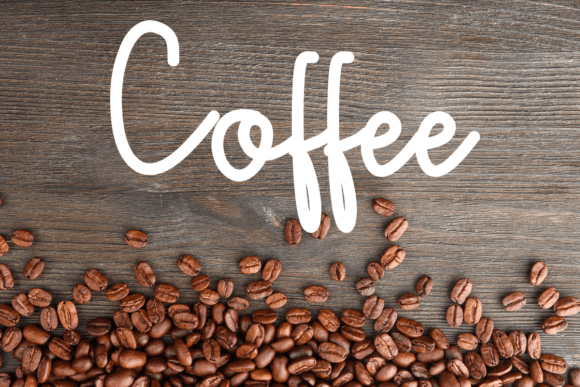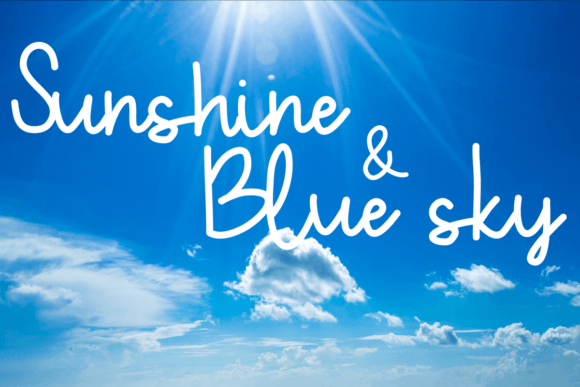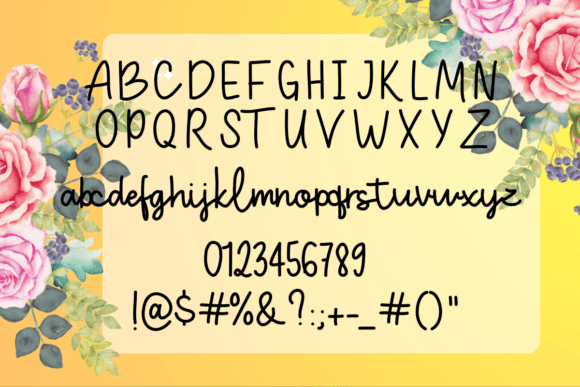
Introducing Beautiful Font: Elevate Your Designs with Modern Elegance
Beautiful is a stunning modern handwritten font that has taken the design world by storm. Its unique blend of elegance and playfulness makes it the perfect addition to any design project. Whether you’re a seasoned designer or a crafty DIY enthusiast, Beautiful Font is sure to captivate your audience with its fresh and original typography.
The Perfect Blend of Modern and Classy
Beautiful Font boasts a modern and classy aesthetic that’s perfect for designers looking to add a touch of sophistication to their work. Its clean lines, flowing curves, and delicate strokes create a beautiful visual experience that’s both eye-catching and refined. This versatile font is ideal for a wide range of design applications, from wedding invitations and branding materials to social media graphics and digital art.
What Makes Beautiful Font So Special?
- Unique and Original: Beautiful Font is a one-of-a-kind typeface that’s sure to make your designs stand out from the crowd. Its distinctive style and flair will add a touch of personality to any project.
- Handwritten with Love: This font is carefully crafted with a personal touch, giving it a warm and inviting feel that’s perfect for designs that require a human touch.
- Modern and Fresh: Beautiful Font is a modern take on traditional handwritten fonts. Its fresh and contemporary style ensures that your designs will look current and on-trend.
- Cute and Playful: This font’s playful and whimsical nature makes it perfect for designs that require a touch of fun and personality.
Use Beautiful Font in Your Designs
Beautiful Font is perfect for a wide range of design applications, including:
- Wedding Invitations: Add a touch of elegance and sophistication to your wedding invitations and stationery.
- Branding Materials: Use Beautiful Font to create stunning logos, business cards, and brochures that showcase your brand’s personality.
- Social Media Graphics: Elevate your social media presence with eye-catching graphics and typography that will make your content stand out.
- Digital Art: Beautiful Font is perfect for digital artists looking to add a touch of elegance and sophistication to their artwork.
Tips for Using Beautiful Font
To get the most out of Beautiful Font, here are some expert tips:
- Pair it with Other Fonts: Combine Beautiful Font with other fonts to create a unique and visually appealing typography combination.
- Experiment with Colors: Play around with different colors and textures to add depth and interest to your designs.
- Use it in Headlines and Titles: Beautiful Font is perfect for headlines and titles, where its elegant and refined style can really shine.
Beautiful Font is a stunning modern handwritten font that’s perfect for designers and crafters looking to add a touch of elegance and sophistication to their work. Its unique blend of modern and classy style, combined with its playful and whimsical nature, makes it a versatile and valuable addition to any design project. So why wait? Download Beautiful Font today and take your designs to the next level!